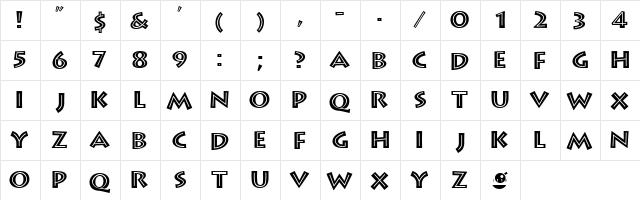
Greek Diner Inline TT Regular
Greek Diner Inline TT is built around its visual character rather than neutral utility — its distinctive forms are designed to make an impression at display sizes.
Font Pairing: Pair with a clean neutral sans-serif for body copy to let Greek Diner Inline TT's character lead without overwhelming the composition.
Pro Tip: Use Greek Diner Inline TT exclusively at display sizes — it was designed to be seen, not read at length. Let a neutral companion handle body copy.